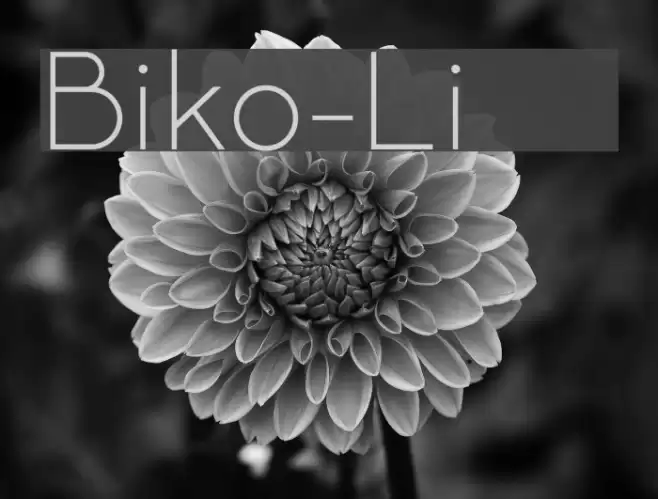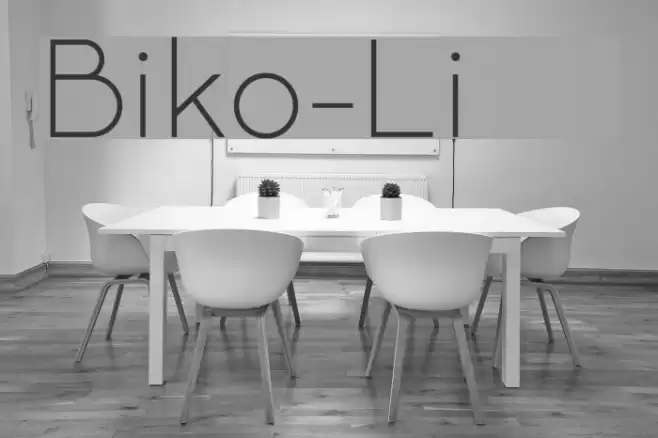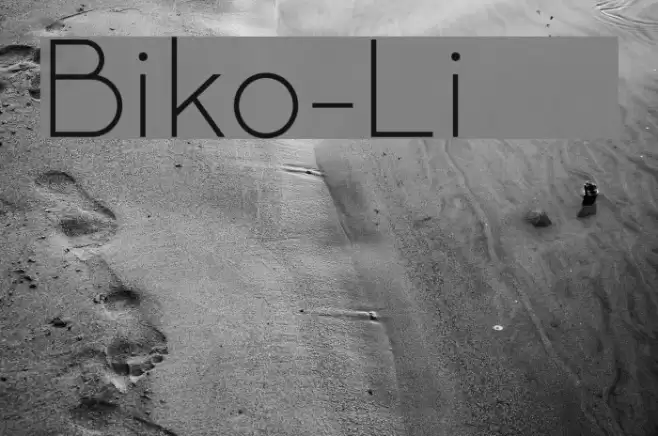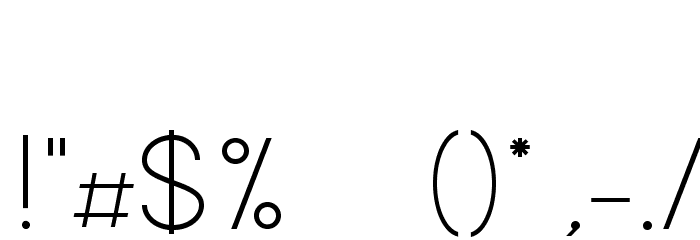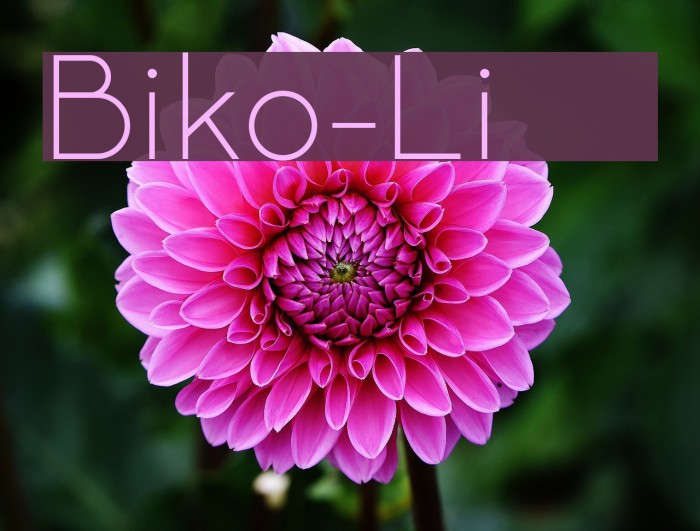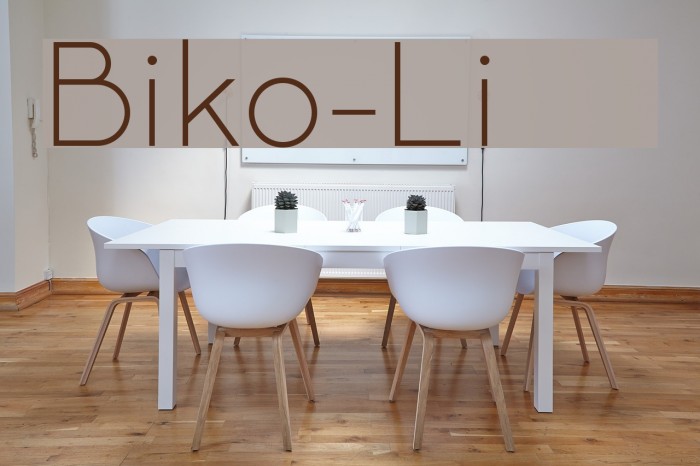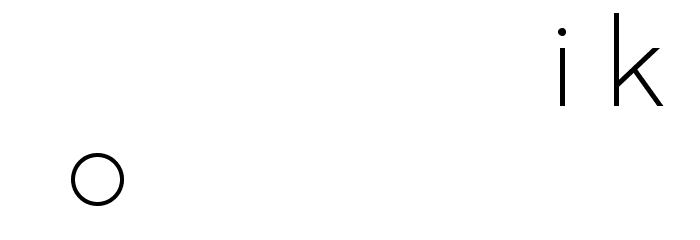
Biko-Light Font
Biko-Light Description
This font exhibits a clean and modern sans-serif style, characterized by its geometric shapes and minimalistic design. The uppercase letters are uniform and balanced, with consistent stroke widths that convey a sense of stability and clarity. The lowercase letters maintain the same geometric precision, offering a harmonious flow. The numerals are straightforward and align well with the overall aesthetic. Special characters are crafted with the same attention to detail, ensuring versatility across various applications. The font's simplicity and elegance make it suitable for contemporary design projects.
A modern, geometric sans-serif font with clean lines and balanced proportions from Uncategorized fonts.